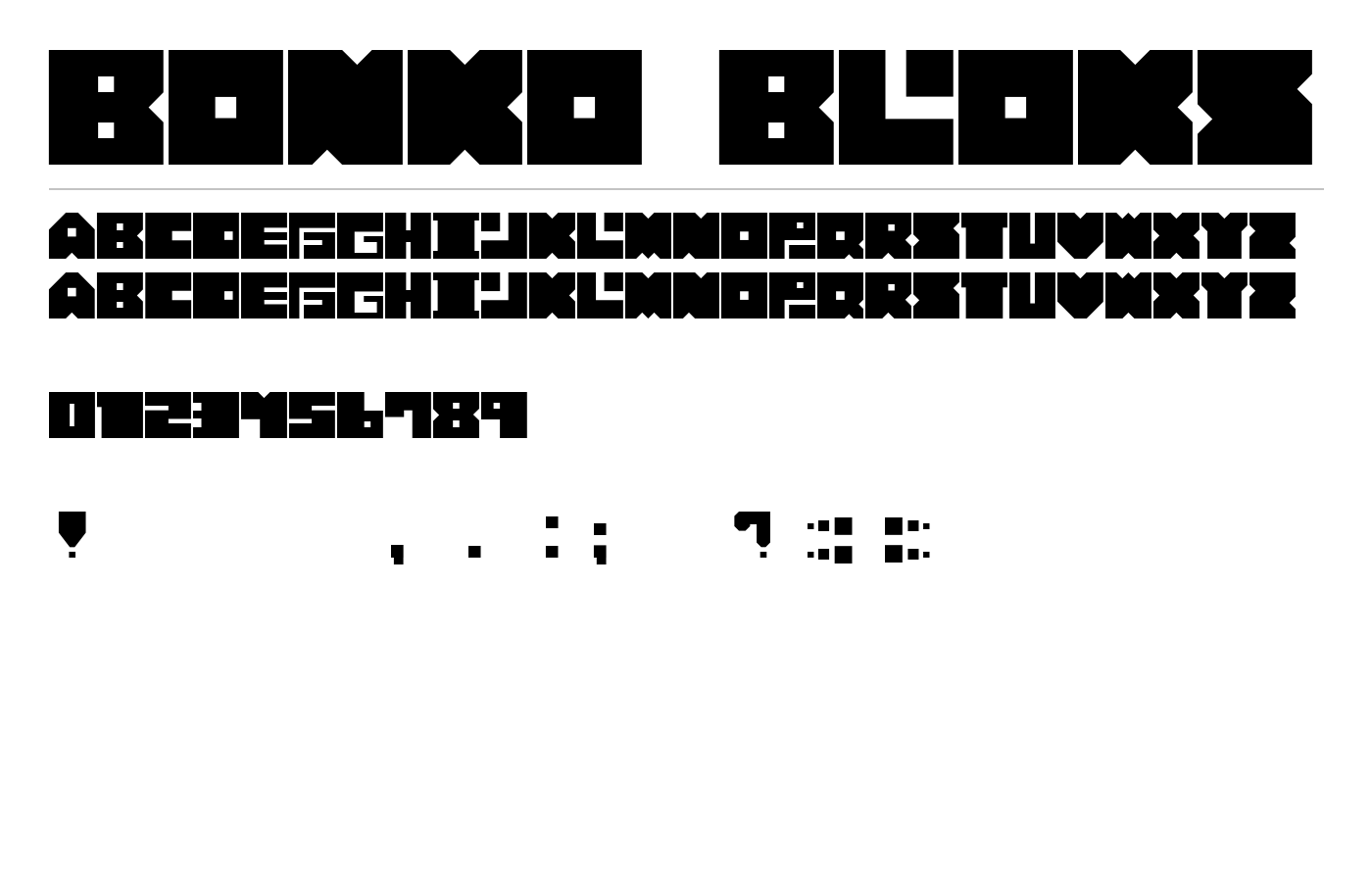
Bonko Bloks is a bold, blocky sans serif font with a strong geometric style, featuring heavy weight and a compact, squared structure. Its sharp, angular forms and uniform stroke width give it a modern, playful, and slightly futuristic vibe, making it ideal for attention-grabbing headlines, logos, and creative branding that seeks a distinctive, tech-savvy edge.
Bonko Bloks Font